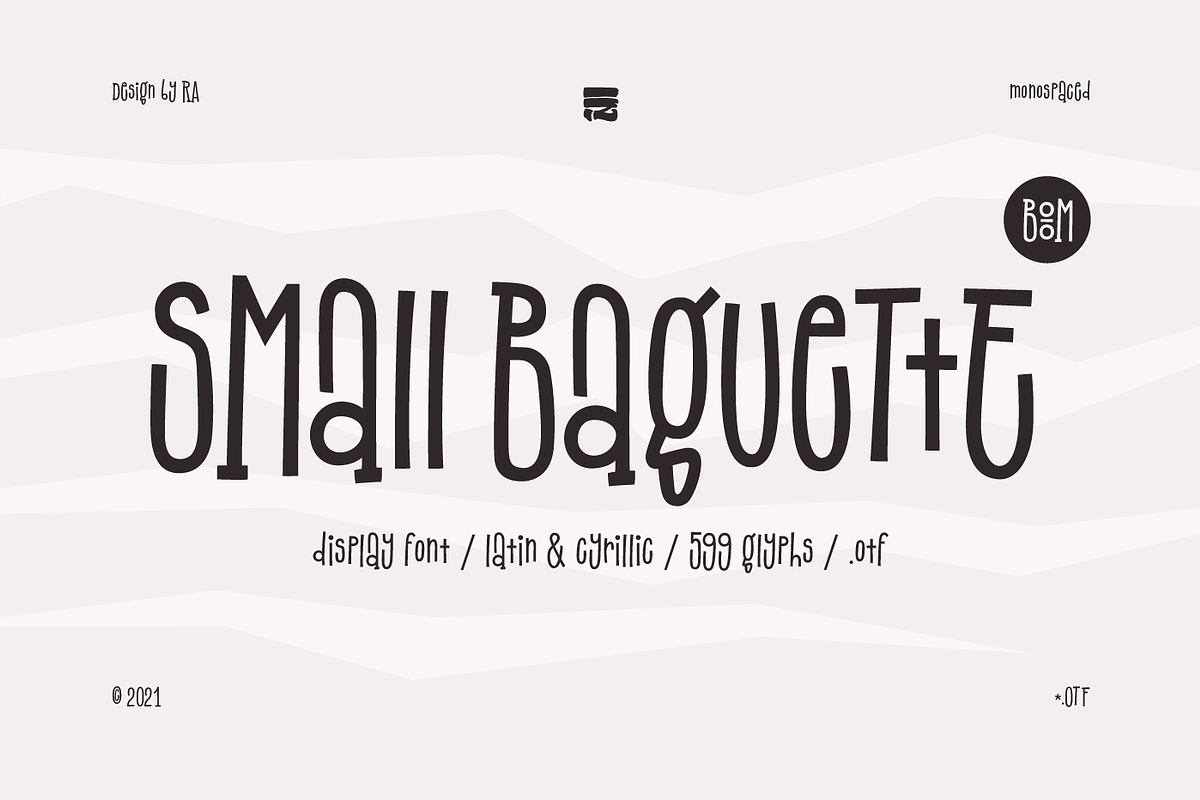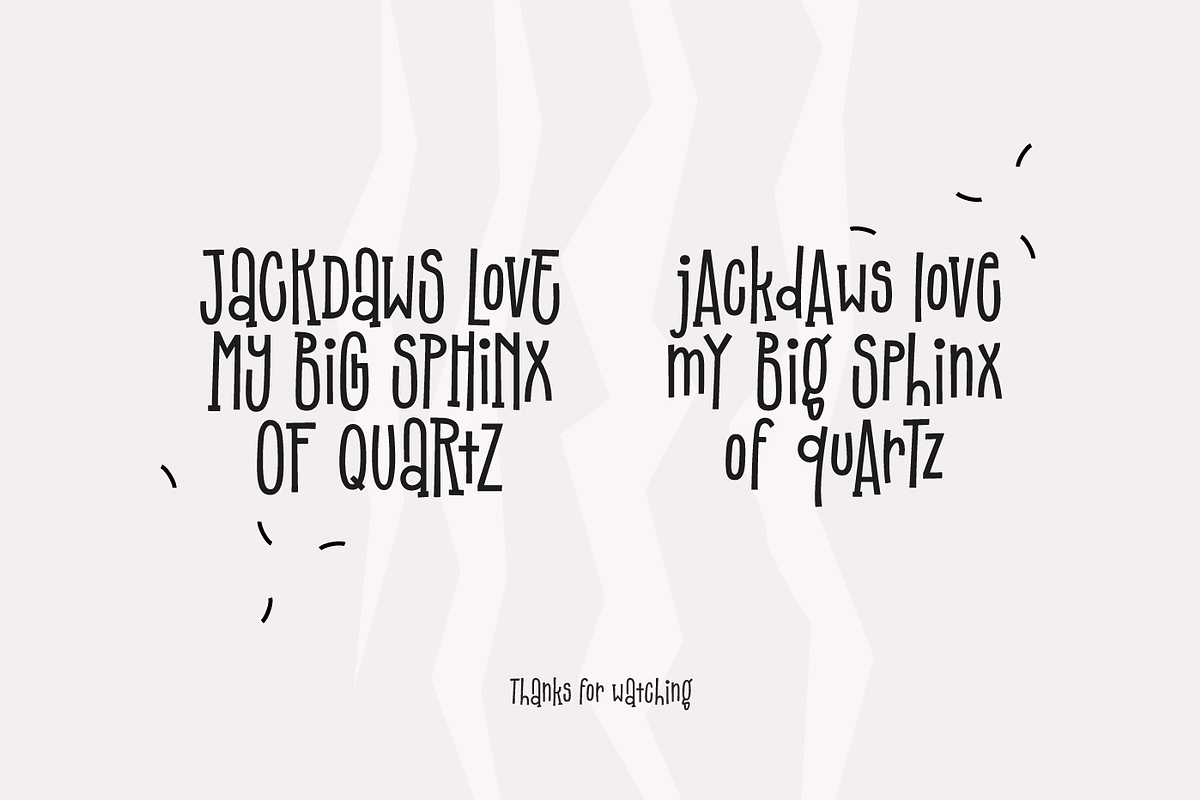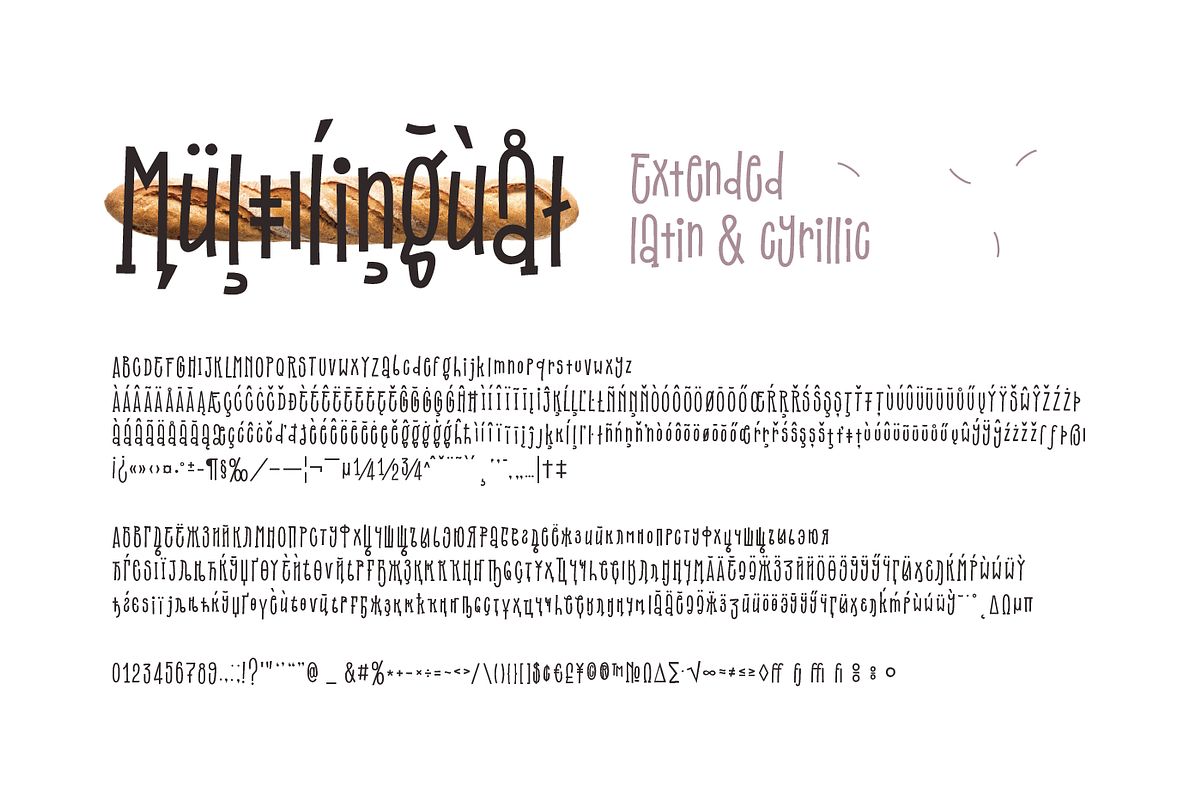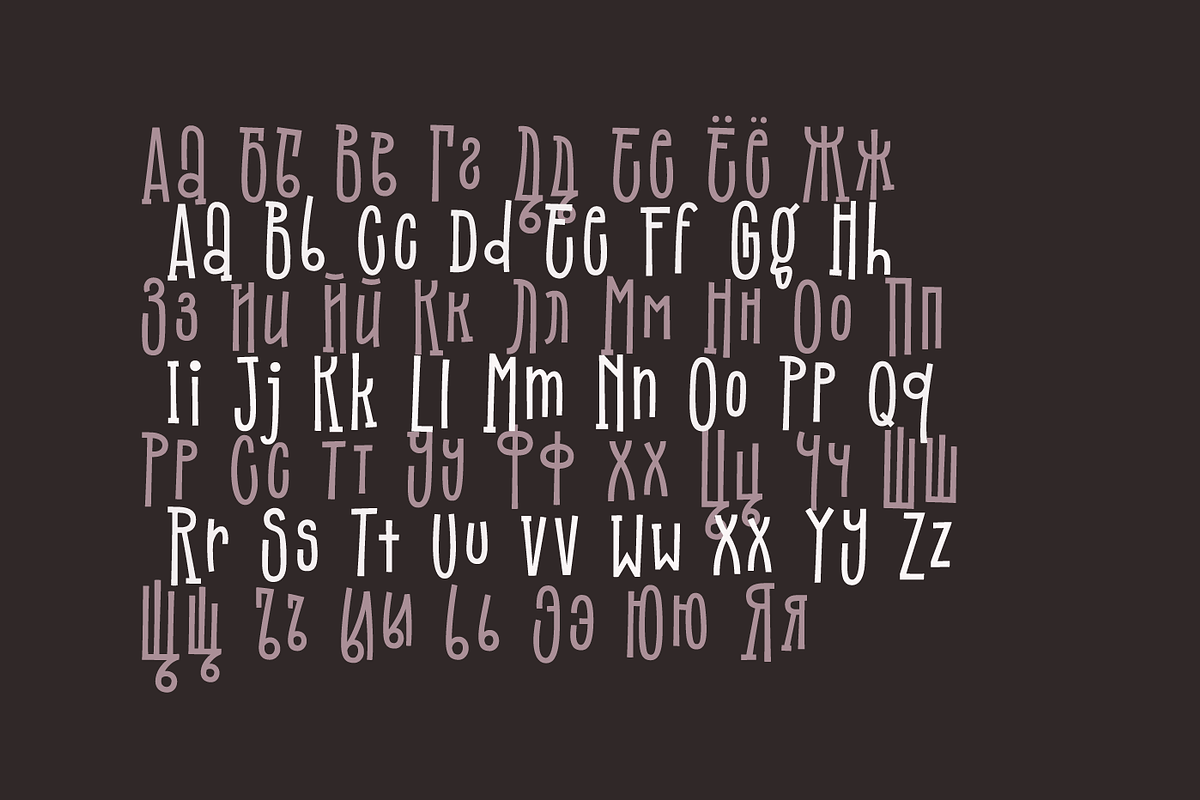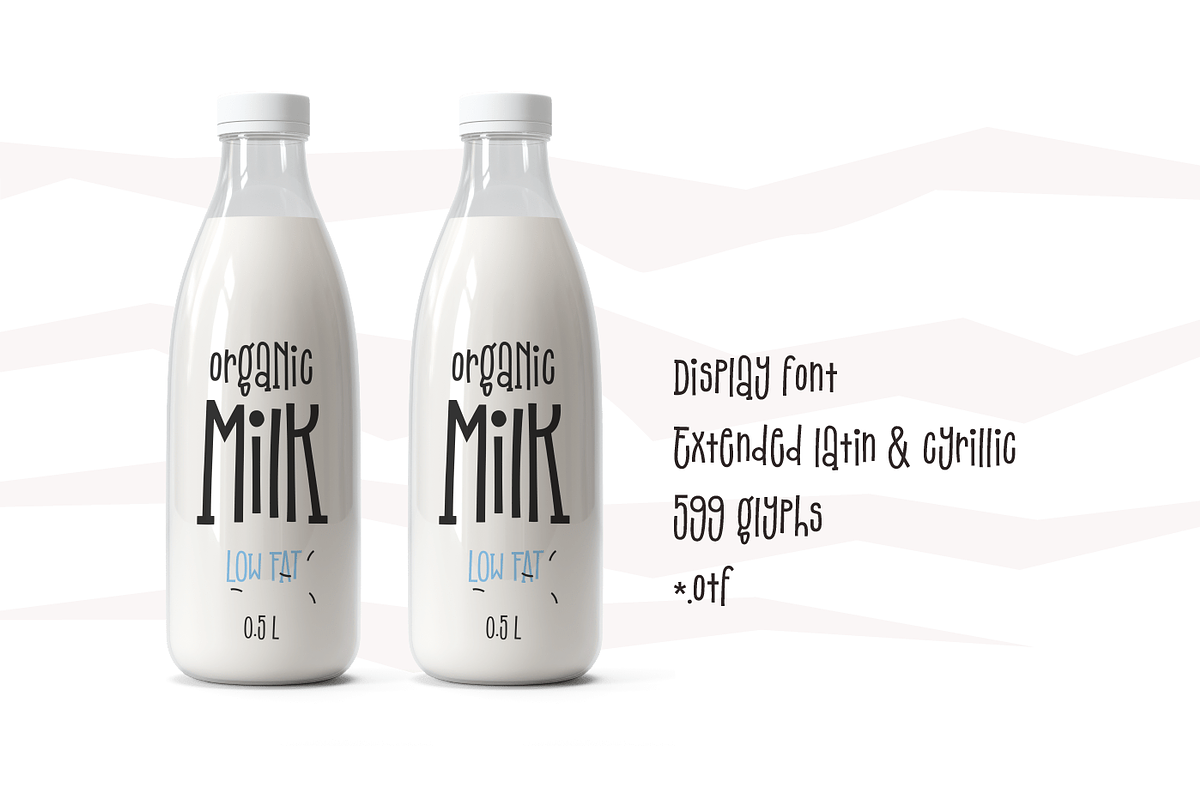
Small Baguette - Display Font
A great font with fun ligatures. Symbols are stretched vertically like a baguette. It is perfect for eye-catching signs, posters, headers, product packaging, book cover, logotype, apparel design and etc.
Alternate uppercase and lowercase letters for more fun.
- Display font
- Extended latin & cyrillic
- 599 glifs